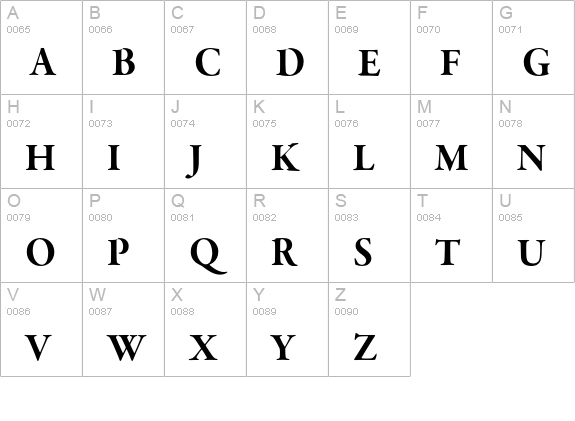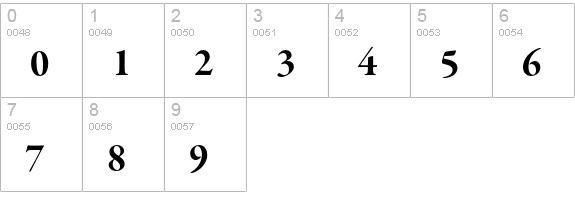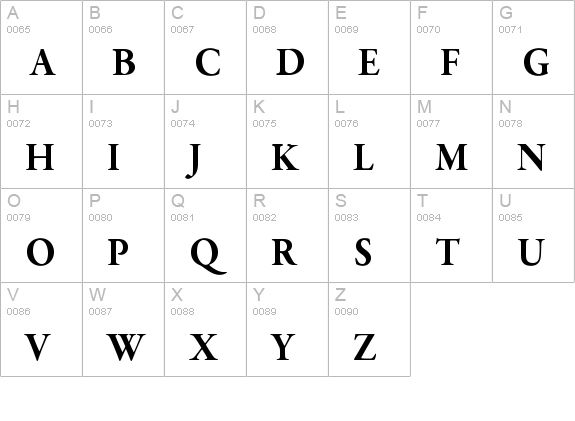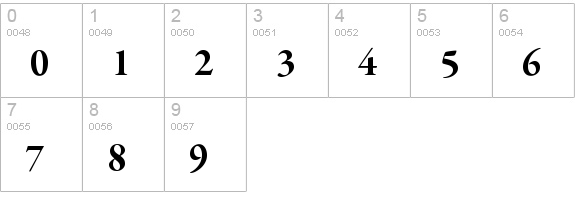
Garamond Premier Pro Bold Subhead is a strong, high-contrast variant in the Garamond typeface family \xE2\x80\x94 well suited to headlines, attention-grabbing titles, and strong calls-to-action.
Garamond Premier Pro Bold Subhead font is a timeless and sophisticated typeface that exudes elegance and professionalism. Its bold weight commands attention while maintaining a sense of refinement and grace. Perfect for headlines, subheadings, and emphasis, this font is versatile and highly legible, making it ideal for a wide range of design projects. And the best part? Garamond Premier Pro Bold Subhead font is available for free download at FontsMarket.com. This means you can easily enhance your designs with this high-quality font without any cost. Don't miss out on the opportunity to elevate your projects with the classic beauty of Garamond Premier Pro Bold Subhead font - download it for free today!